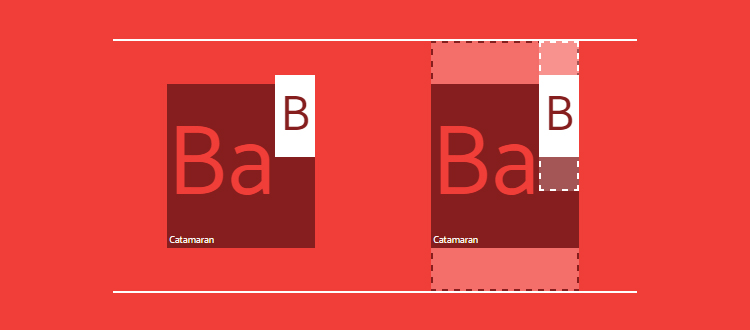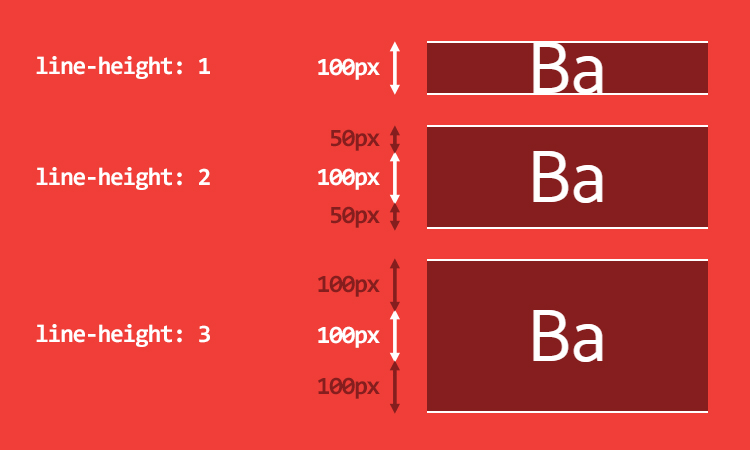
Line-height
and vertical-align
are simple CSS properties. So simple that most of us are convinced to fully understand how they work and how to use them. But it’s not. They really are complex, maybe the hardest ones, as they have a major role in the creation of one of the less-known feature of CSS: inline formatting context.
For example, line-height
can be set as a length or a unitless value 1, but the default is normal
. OK, but what normal is? We often read that it is (or should be) 1, or maybe 1.2, even the CSS spec is unclear on that point. We know that unitless line-height
is font-size
relative, but the problem is that font-size: 100px
behaves differently across font-families, so is line-height
always the same or different? Is it really between 1 and 1.2? And vertical-align
, what are its implications regarding line-height
?
Deep dive into a not-so-simple CSS mechanism…
Let’s talk about font-size
first
Look at this simple HTML code, a <p>
tag containing 3 <span>
, each with a different font-family
:
<p>
<span class="a">Ba</span>
<span class="b">Ba</span>
<span class="c">Ba</span>
</p>
p { font-size: 100px }
.a { font-family: Helvetica }
.b { font-family: Gruppo }
.c { font-family: Catamaran }
Using the same font-size
with different font-families produce elements with various heights:
Even if we’re aware of that behavior, why font-size: 100px
does not create elements with 100px height? I’ve measured and found these values: Helvetica: 115px, Gruppo: 97px and Catamaran: 164px
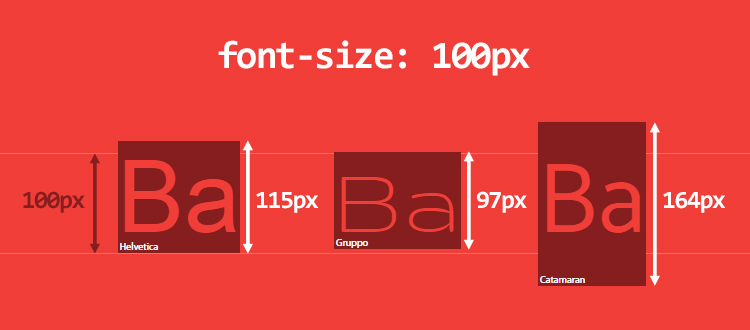
Although it seems a bit weird at first, it’s totally expected. The reason lays down inside the font itself. Here is how it works:
- a font defines its em-square (or UPM, units per em), a kind of container where each character will be drawn. This square uses relative units and is generally set at 1000 units. But it can also be 1024, 2048 or anything else.
- based on its relative units, metrics of the fonts are set (ascender, descender, capital height, x-height, etc.). Note that some values can bleed outside of the em-square.
- in the browser, relative units are scaled to fit the desired font-size.
Let’s take the Catamaran font and open it in FontForge to get metrics:
- the em-square is 1000
- the ascender is 1100 and the descender is 540. After running some tests, it seems that browsers use the HHead Ascent/Descent values on Mac OS, and Win Ascent/Descent values on Windows (these values may differ!). We also note that Capital Height is 680 and X height is 485.
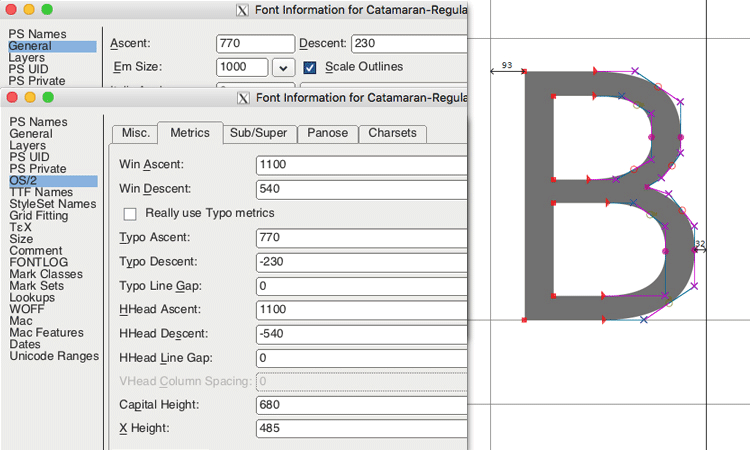
That means the Catamaran font uses 1100 + 540 units in a 1000 units em-square, which gives a height of 164px when setting font-size: 100px
. This computed height defines the content-area of an element and I will refer to this terminology for the rest of the article. You can think of the content-area as the area where the background
property applies 2.
We can also predict that capital letters are 68px high (680 units) and lower case letters (x-height) are 49px high (485 units). As a result, 1ex
= 49px and 1em
= 100px, not 164px (thankfully, em
is based on font-size
, not computed height)
Before going deeper, a short note on what this it involves. When a <p>
element is rendered on screen, it can be composed of many lines, according to its width. Each line is made up of one or many inline elements (HTML tags or anonymous inline elements for text content) and is called a line-box. The height of a line-box is based on its children’s height. The browser therefore computes the height for each inline elements, and thus the height of the line-box (from its child’s highest point to its child’s lowest point). As a result, a line-box is always tall enough to contain all its children (by default).
Each HTML element is actually a stack of line-boxes. If you know the height of each line-box, you know the height of an element.
If we update the previous HTML code like this:
<p>
Good design will be better.
<span class="a">Ba</span>
<span class="b">Ba</span>
<span class="c">Ba</span>
We get to make a consequence.
</p>
It will generate 3 line-boxes:
- the first and last one each contain a single anonymous inline element (text content)
- the second one contains two anonymous inline elements, and the 3
<span>
<p>
(black border) is made of line-boxes (white borders) that contain inline elements (solid borders) and anonymous inline elements (dashed borders)We clearly see that the second line-box is taller than the others, due to the computed content-area of its children, and more specifically, the one using the Catamaran font.
The difficult part in the line-box creation is that we can’t really see, nor control it with CSS. Even applying a background to ::first-line
does not give us any visual clue on the first line-box’s height.
line-height
: to the problems and beyond
- A blog post about the
leading-trim
property, to ensure consistent spacing by controling the leading - Font Metrics API Level 1, a collection of interesting ideas (Houdini)
- no matter what you choose, that’s not the point here ↩
- it’s not strictly true ↩
- in other editing software, it might be the distance between baselines. In Word, or Photoshop, that is the case. The main difference is that the first line is also affected in CSS ↩
- you could also use variables from preprocessors, custom properties are not required ↩